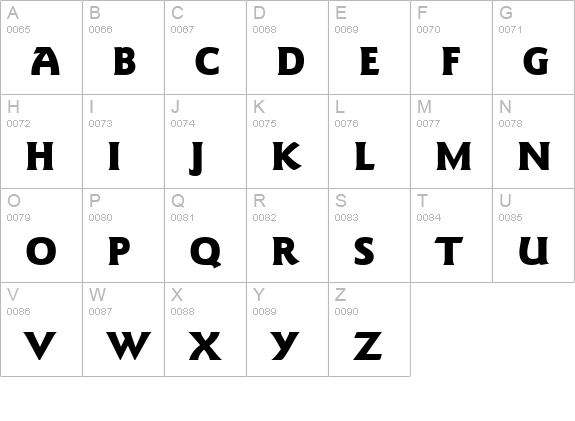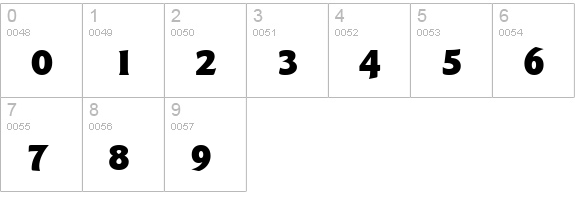
Goudy Sans Black BT Font Details
Goudy Sans Black BT is a maximum-weight, dramatic variant in the Goudy typeface family \xE2\x80\x94 well suited to maximum-impact headlines, posters, and packaging.
Goudy Sans Black BT is a bold and commanding typeface that exudes strength and modernity. Its sleek design and sharp lines make it perfect for headlines, titles, and other display purposes. This font carries a sense of sophistication and professionalism, making it an excellent choice for projects that require a touch of elegance. The best part is that Goudy Sans Black BT is available for free download at FontsMarket.com. Now you can add this striking font to your collection without any cost. Whether you're working on a branding project, a poster design, or any other creative endeavor, Goudy Sans Black BT will help you make a bold statement. Download it today and elevate your designs with this distinctive typeface.